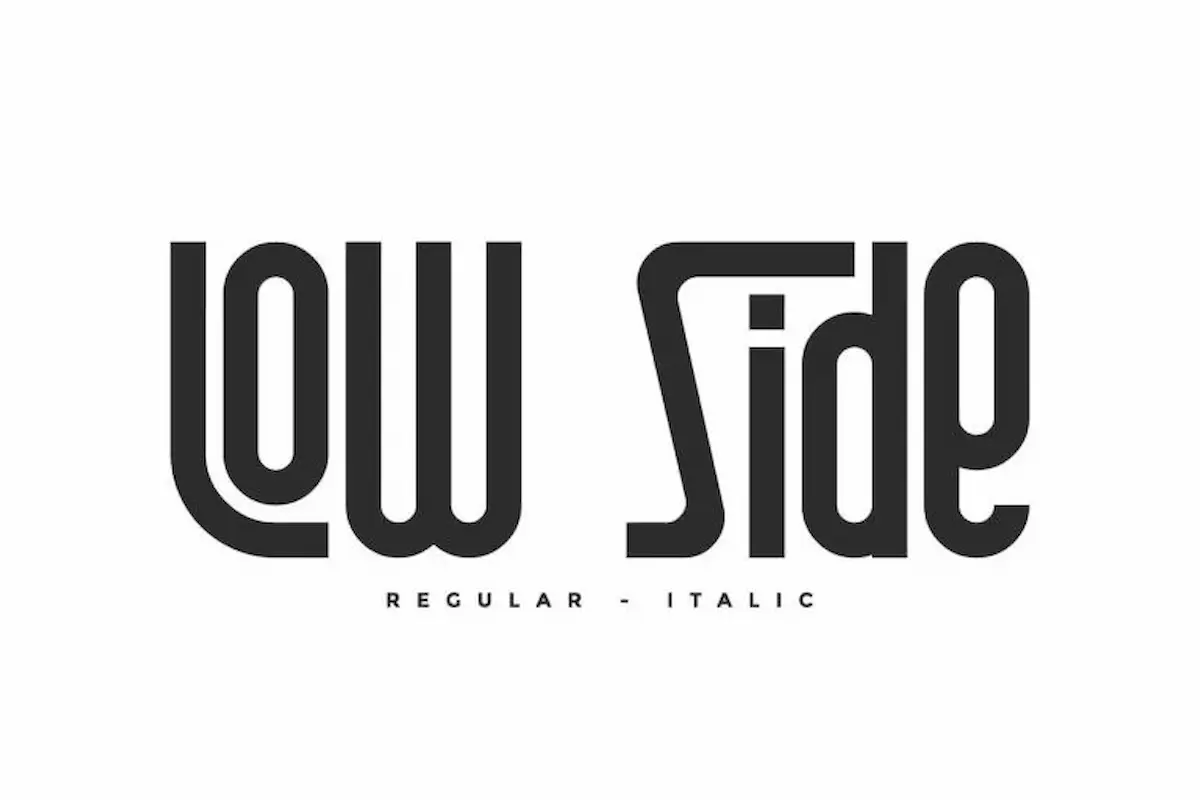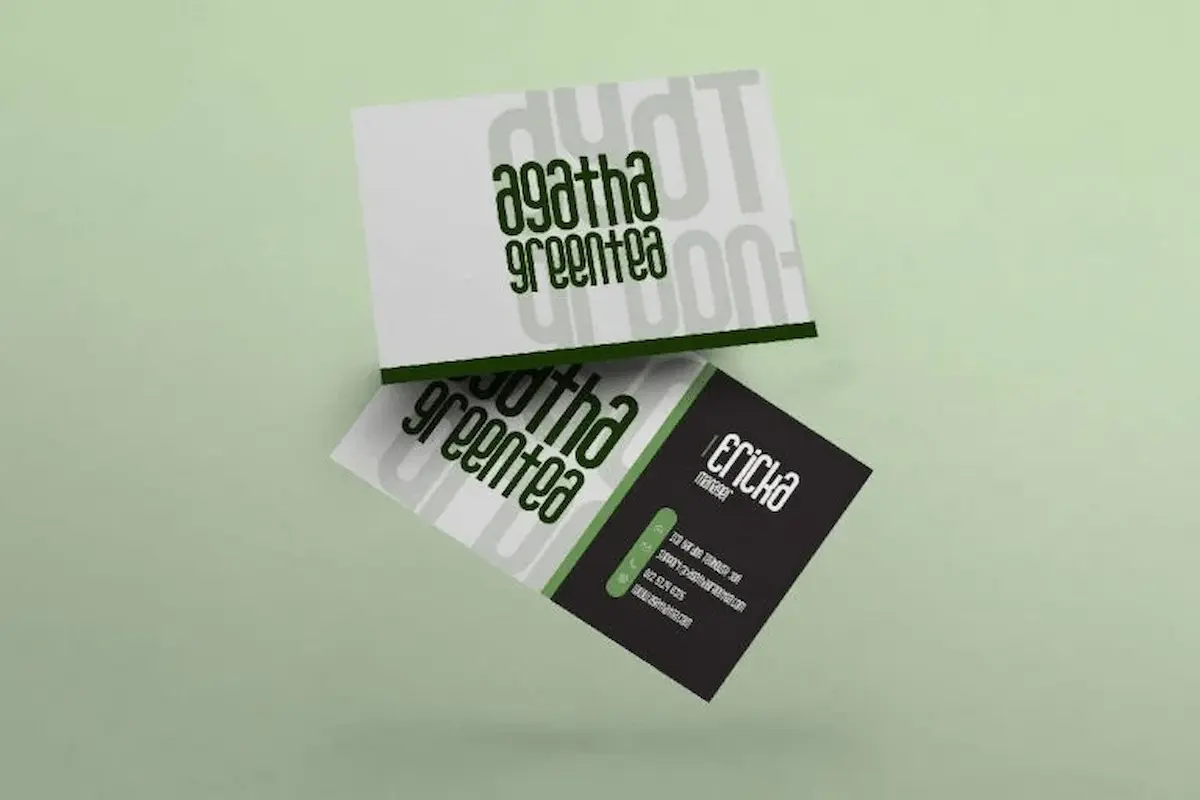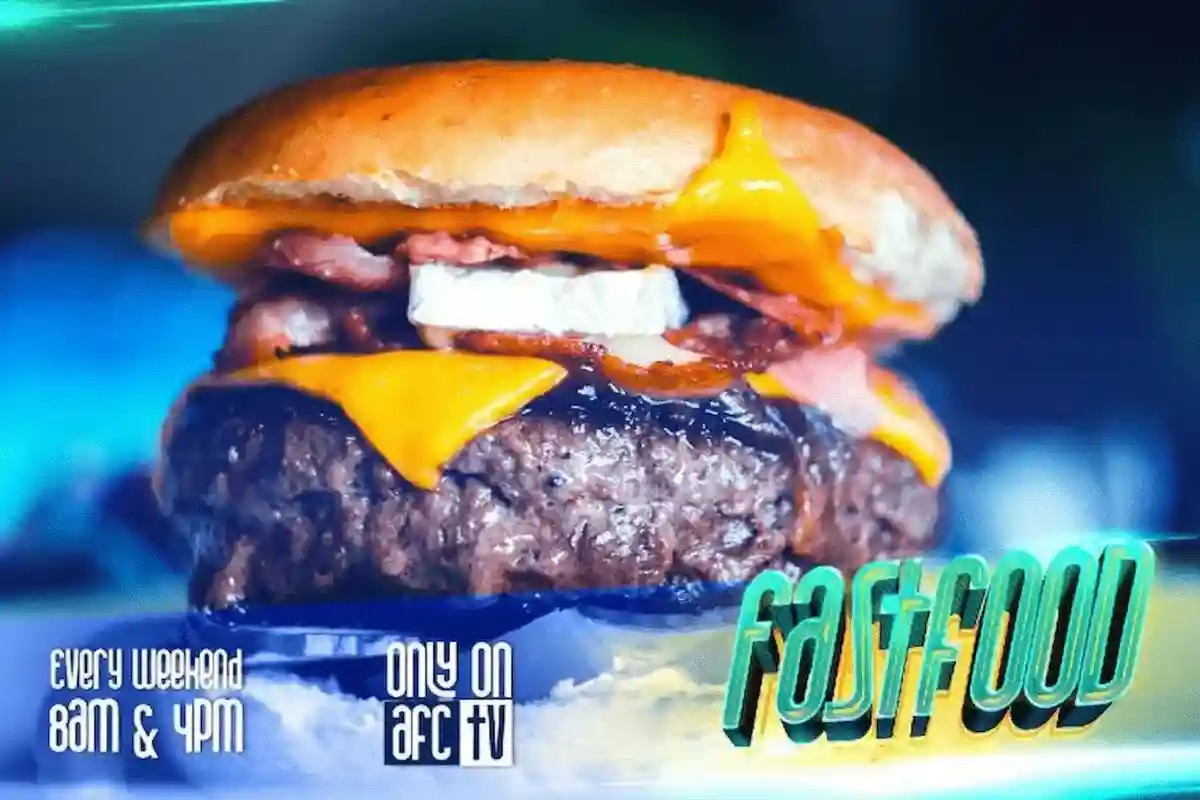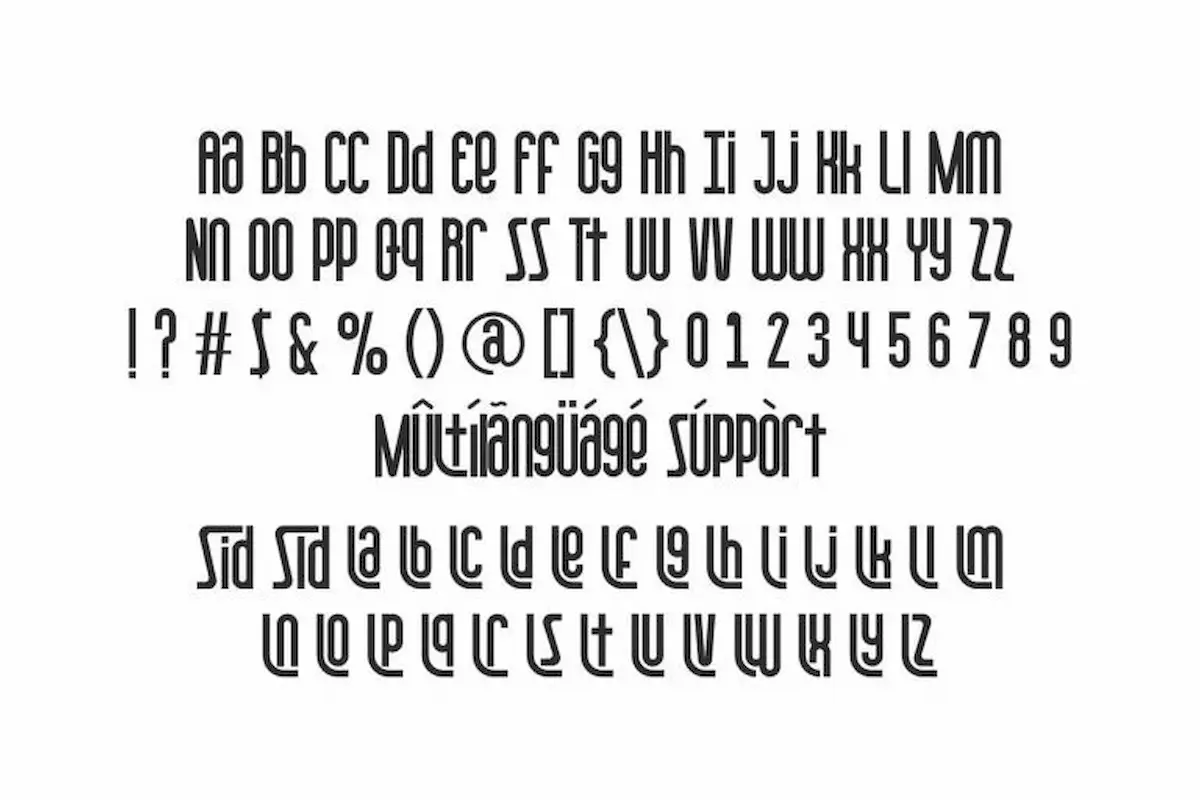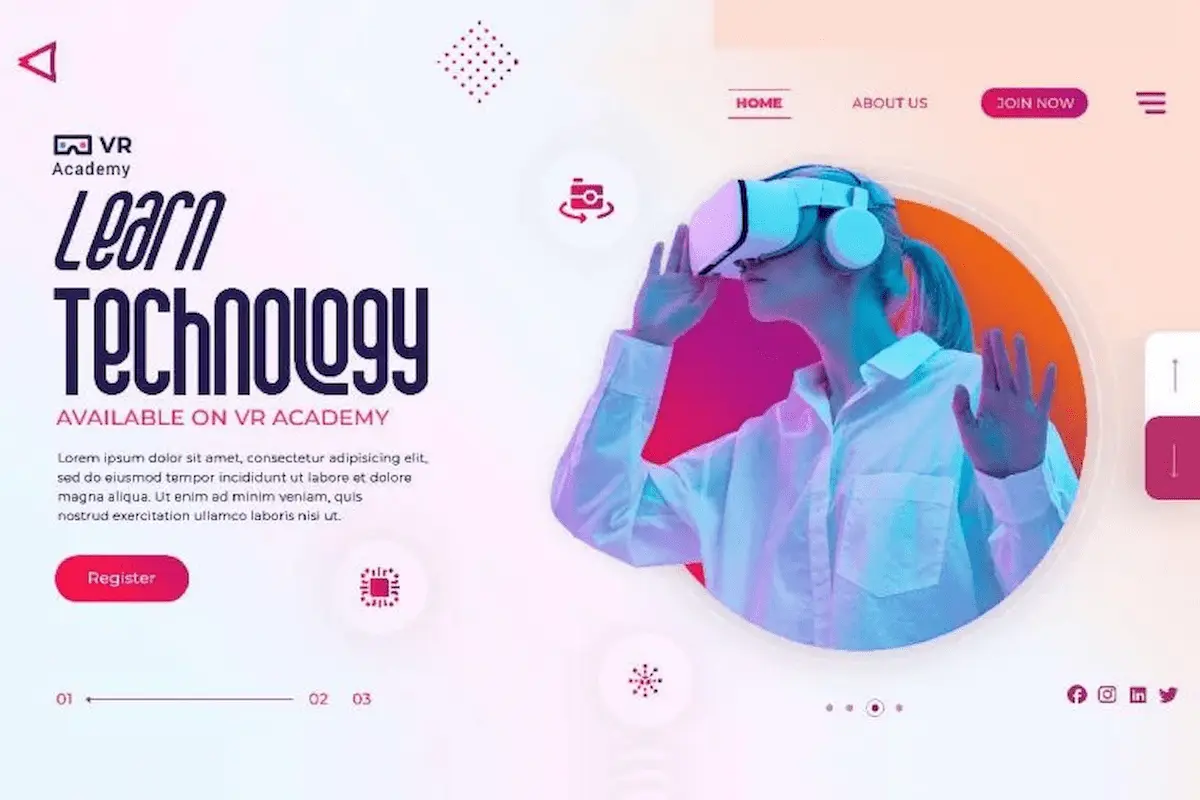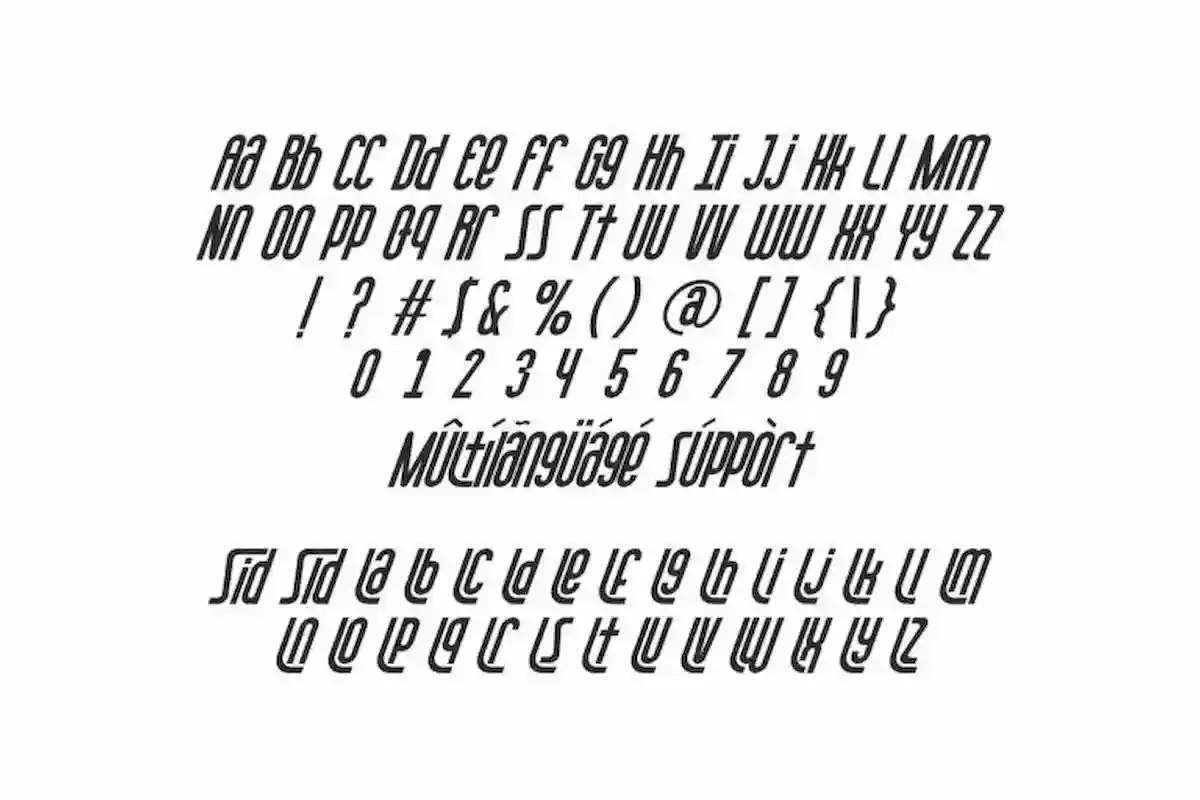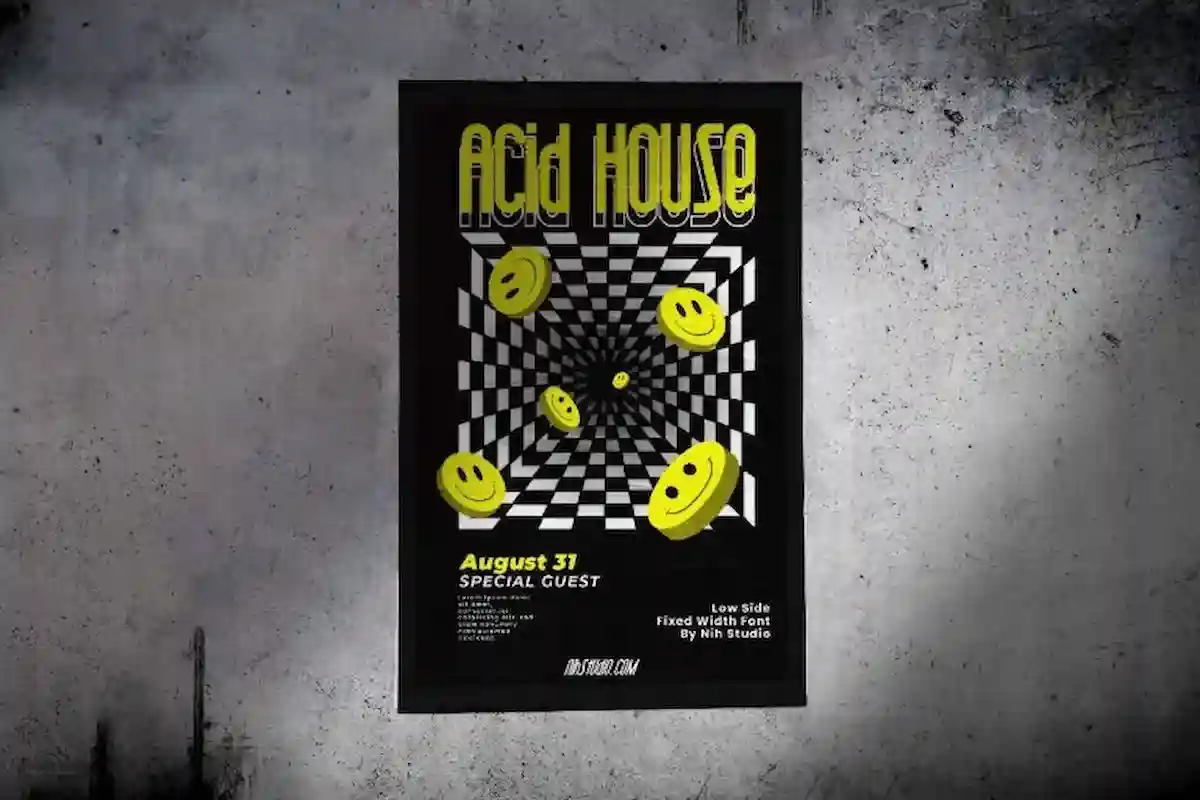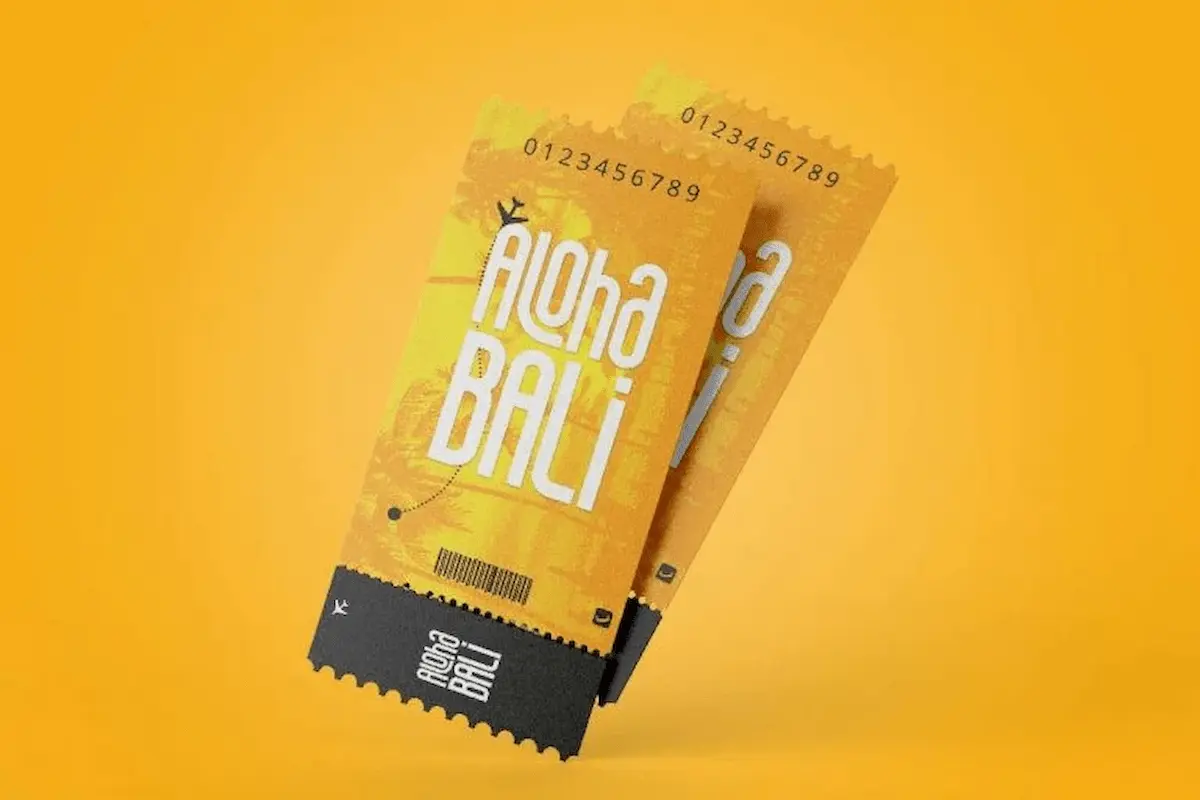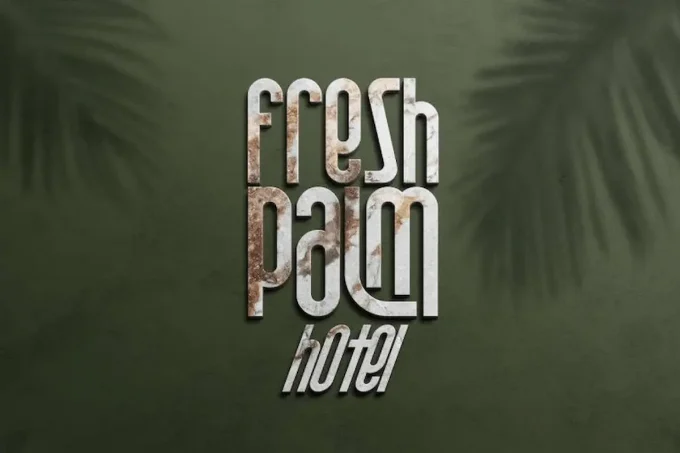
Low Side Font is a unique sans serif display font by NihStudio, made in 2021. Great for many industries : entertainment, games, sports, techno and many more
Low Side Font is a modern and techno style font family originally designed by NihStudio. This font has 2 different styles, Regular and Italic. It will be suitable for many business and industries including business, sports, startup, gadget, games, technology, etc On the package you will get :
Low Side was handcrafted here in our Studio, Indonesia. The font will be great for any projects (require extended license) including : branding, logo, stationery, business card, signage, flyer, brochure etc. It comes with awesome characters and ligatures to make it flowless, stunning and unique.